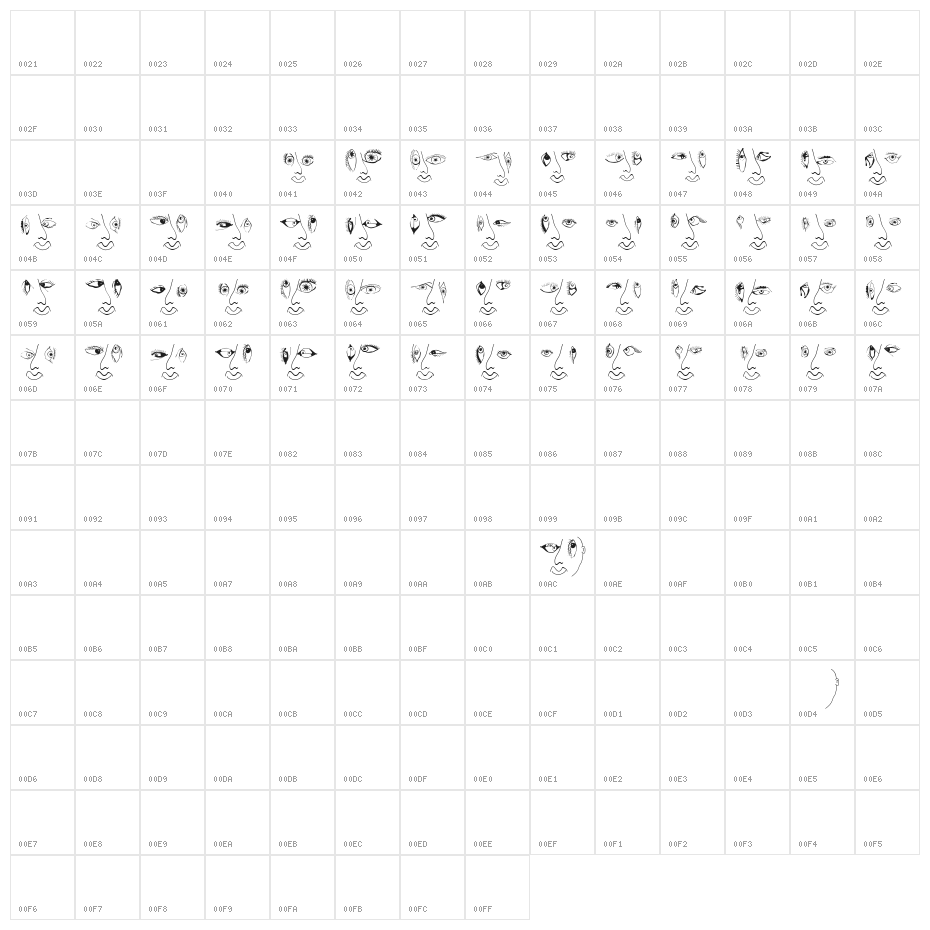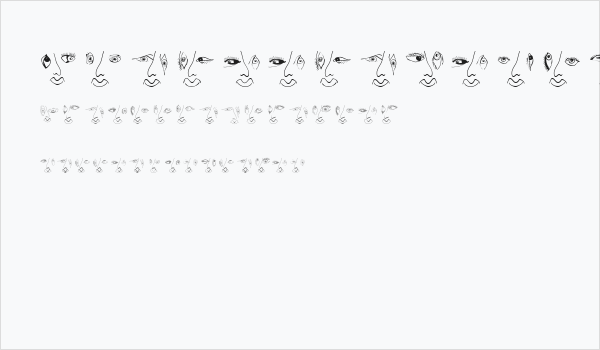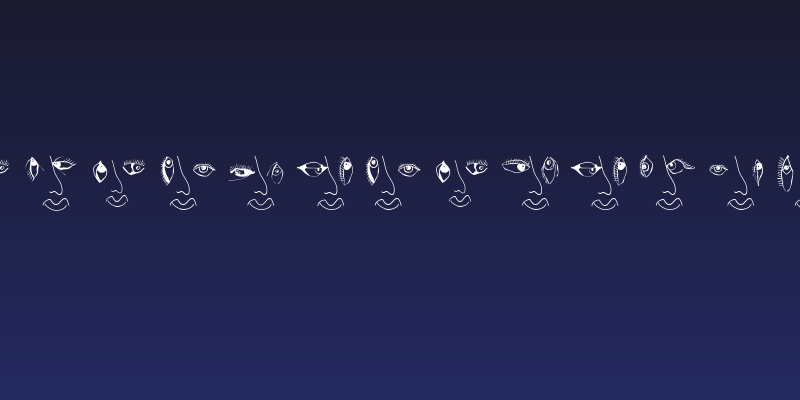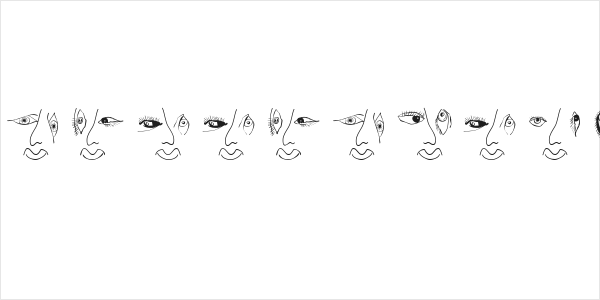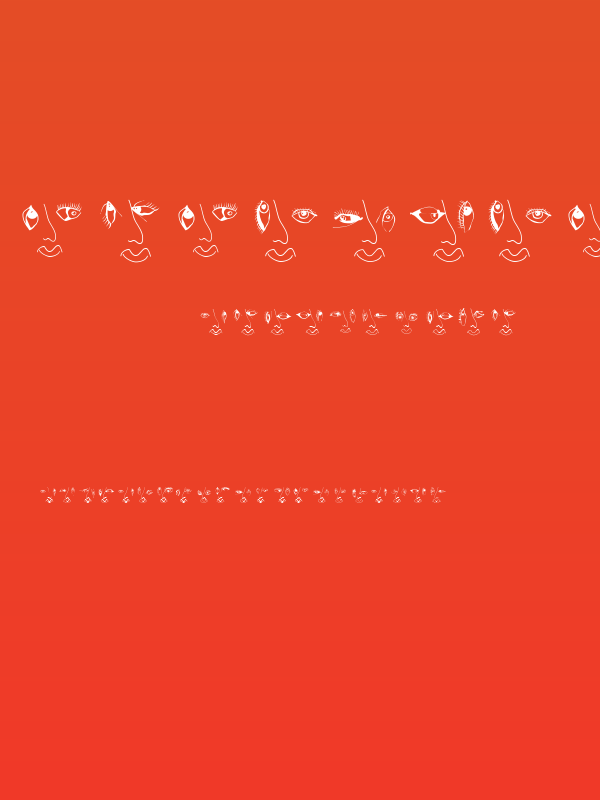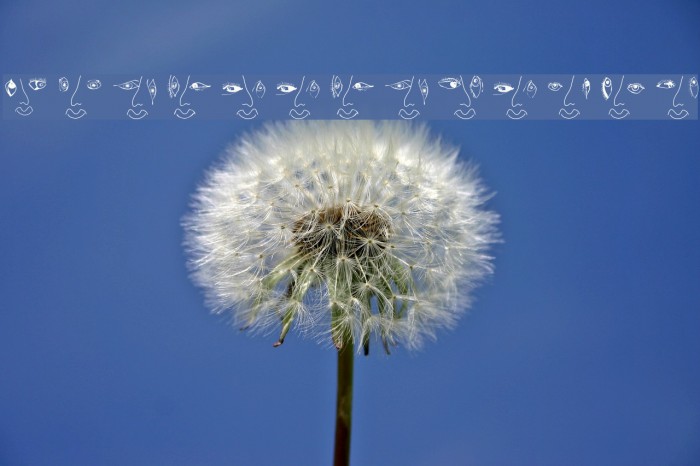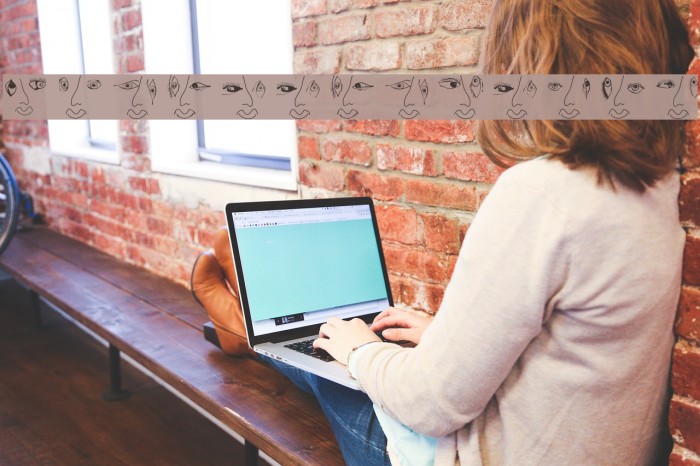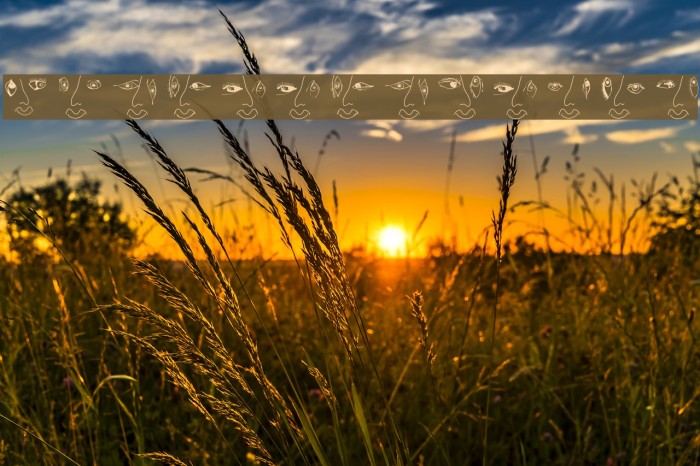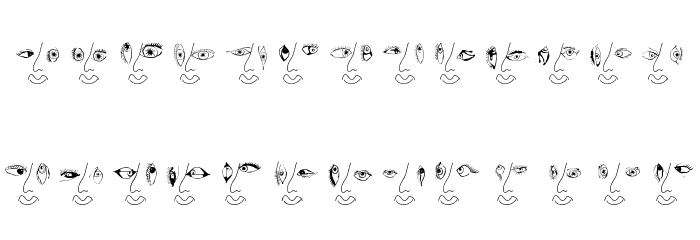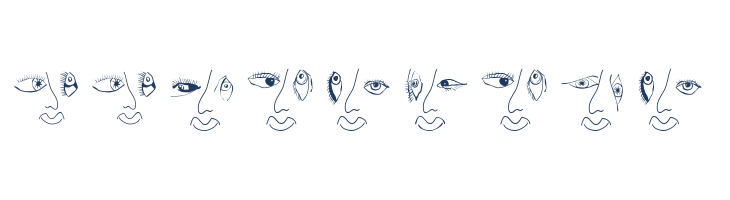
EyesNoseMouth Font
A decorative display font composed of hand-drawn facial features—eyes, noses, and mouths—arranged to represent each character. The style is sketch-like and whimsical, with each glyph uniquely illustrated, giving a playful and artistic feel.
| Overall Style | Decorative, Artistic, Whimsical |
| Use Case | Logos, Posters, Art projects, Editorial headlines |
| Proposed Projects | Posters, album covers, art projects, creative branding, editorial illustrations. |